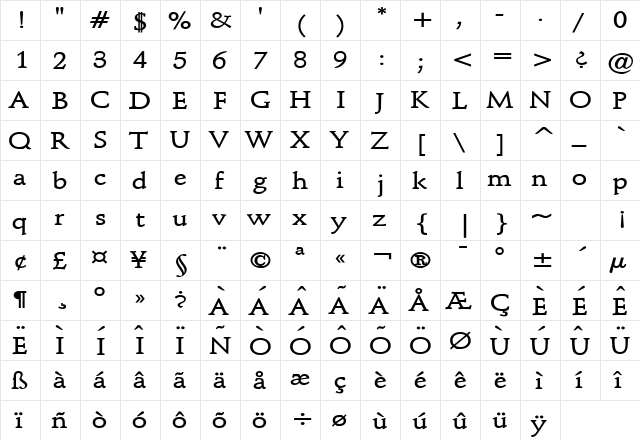
Schroeder Wide Bold
Design Context for Schroeder Wide Typeface
Schroeder Wide is a composed and adaptable typeface that performs quietly and consistently across a wide range of design contexts. The heavy weight commands attention and anchors typographic hierarchies.